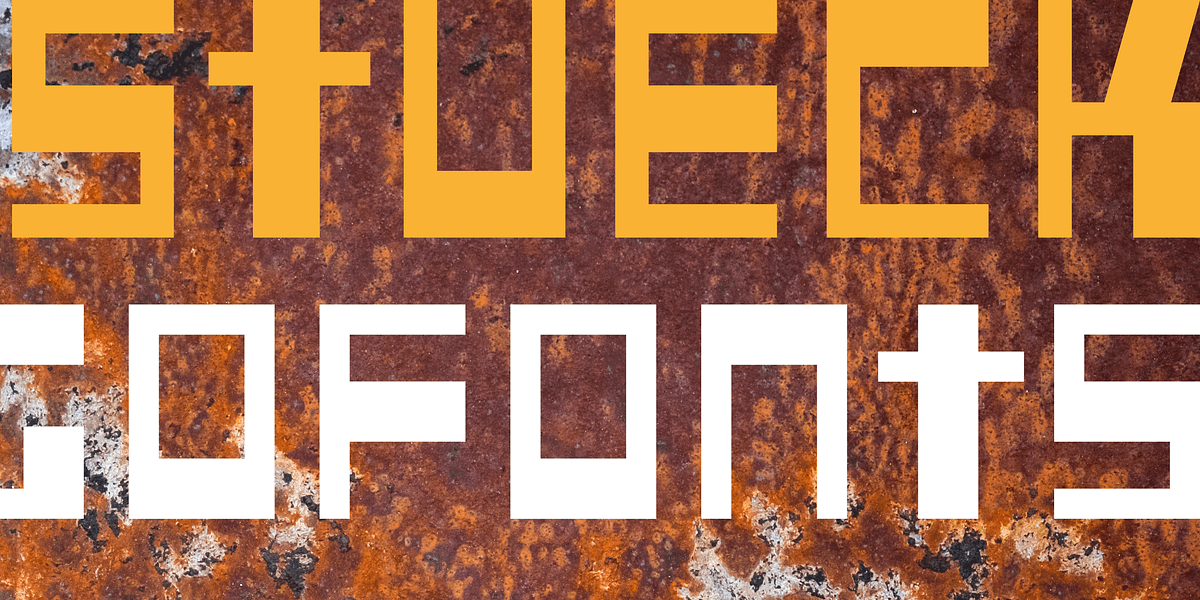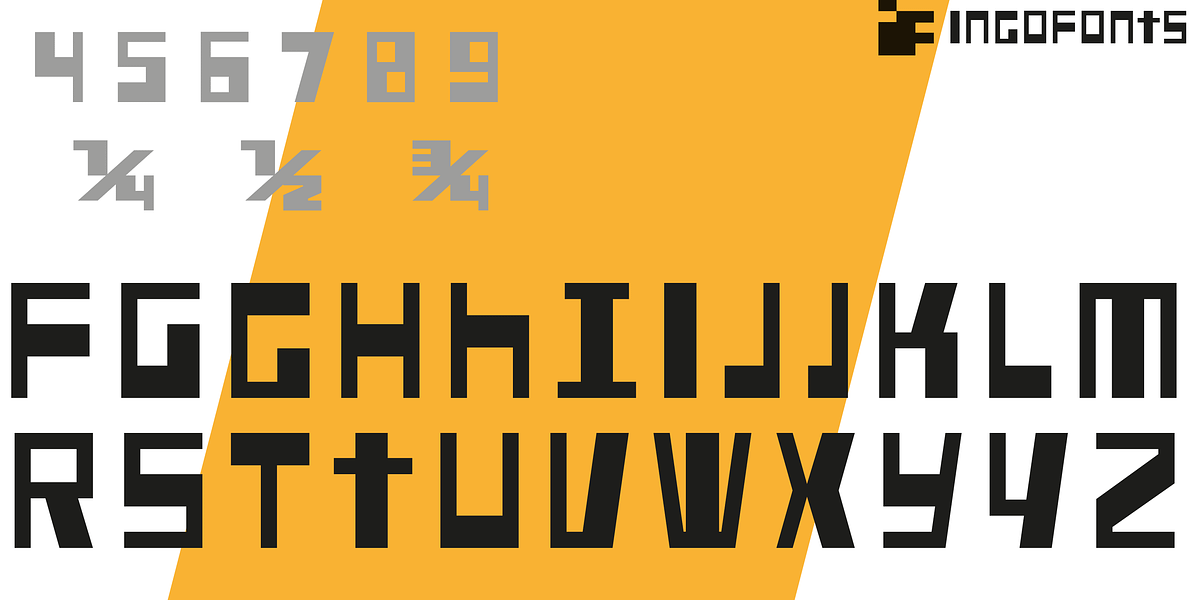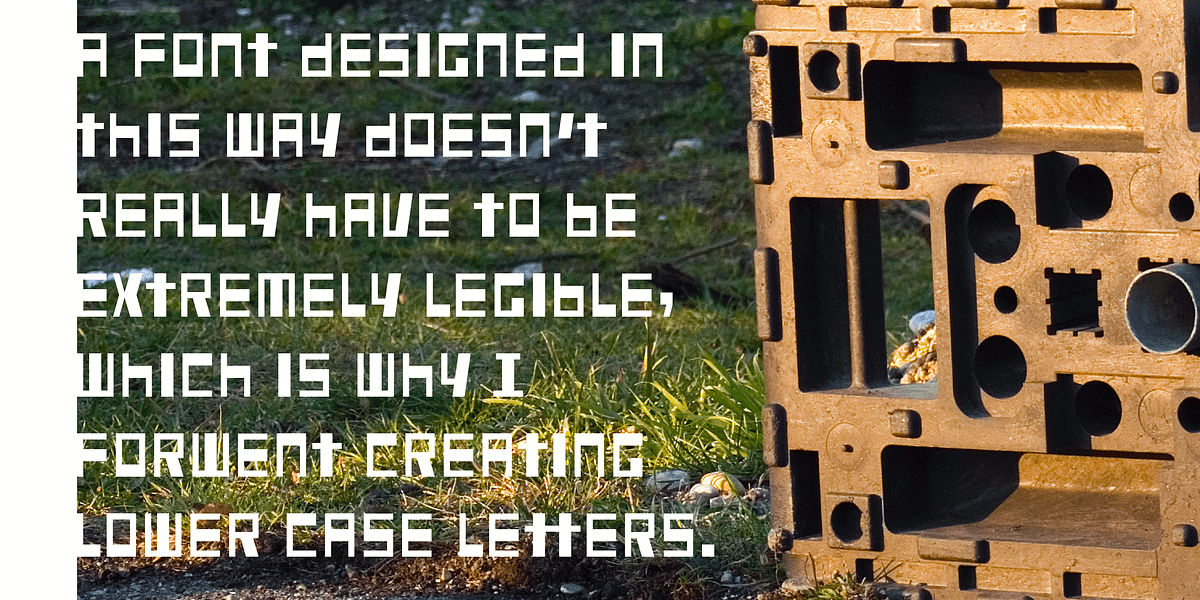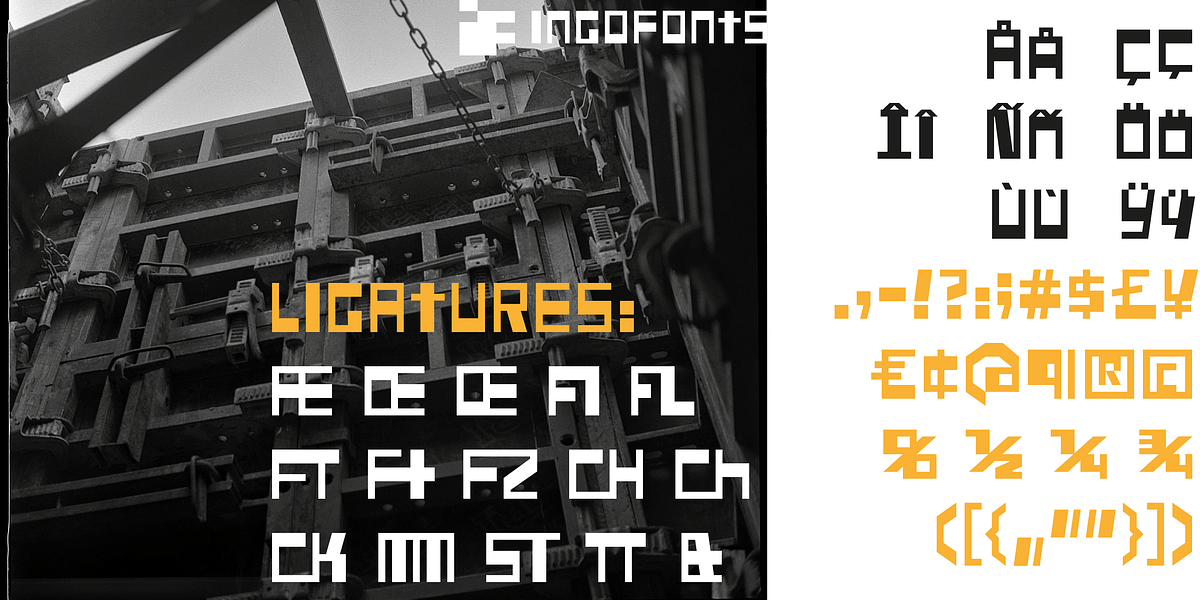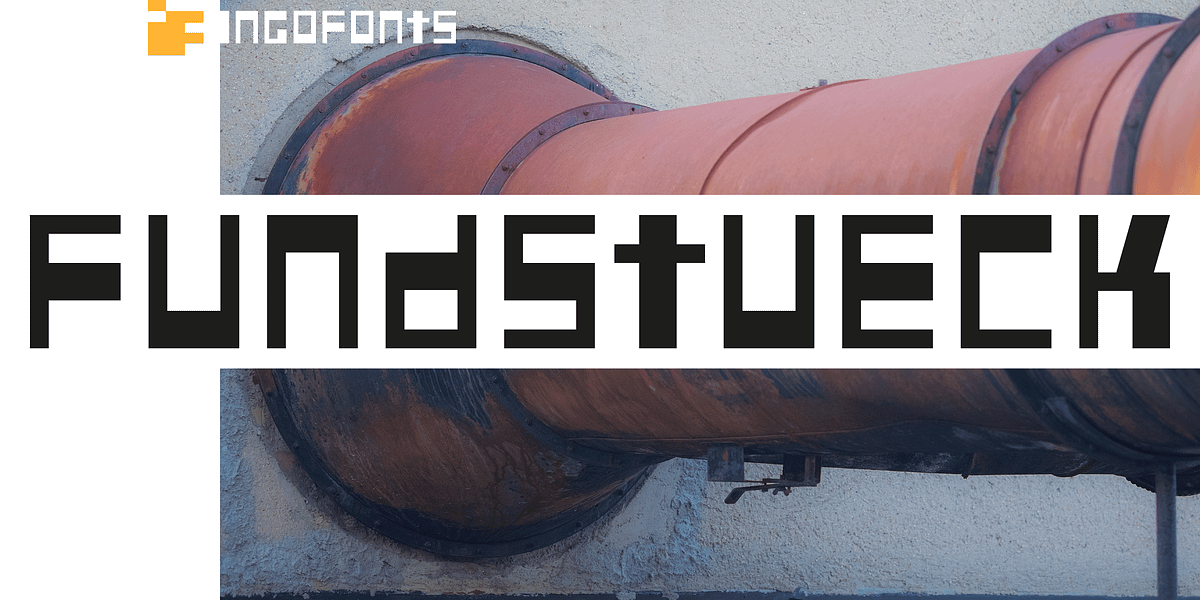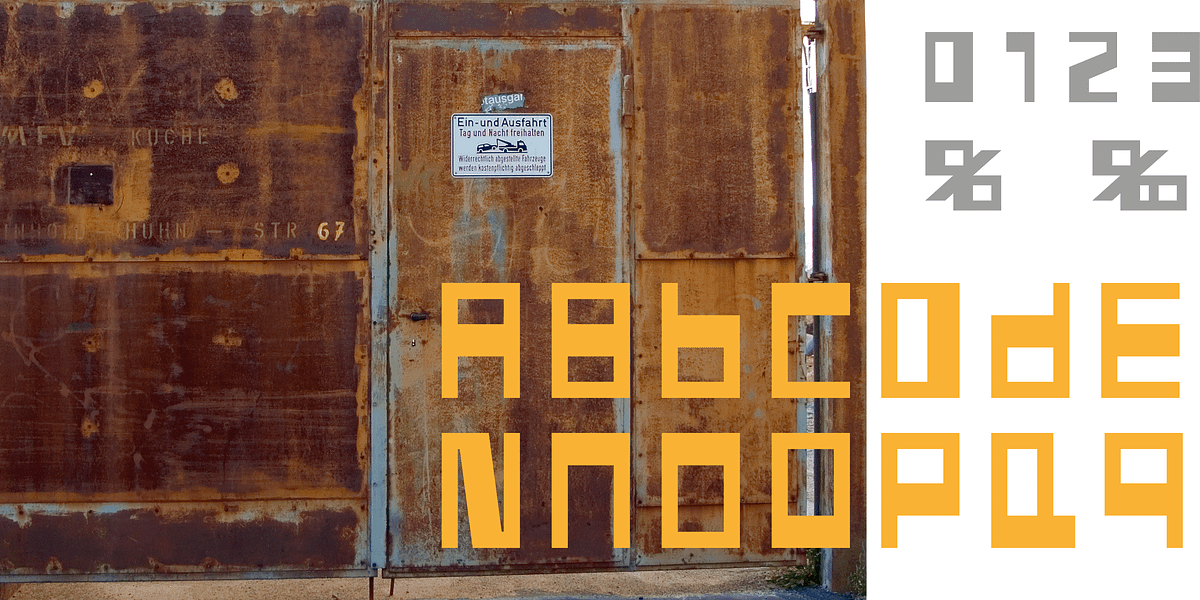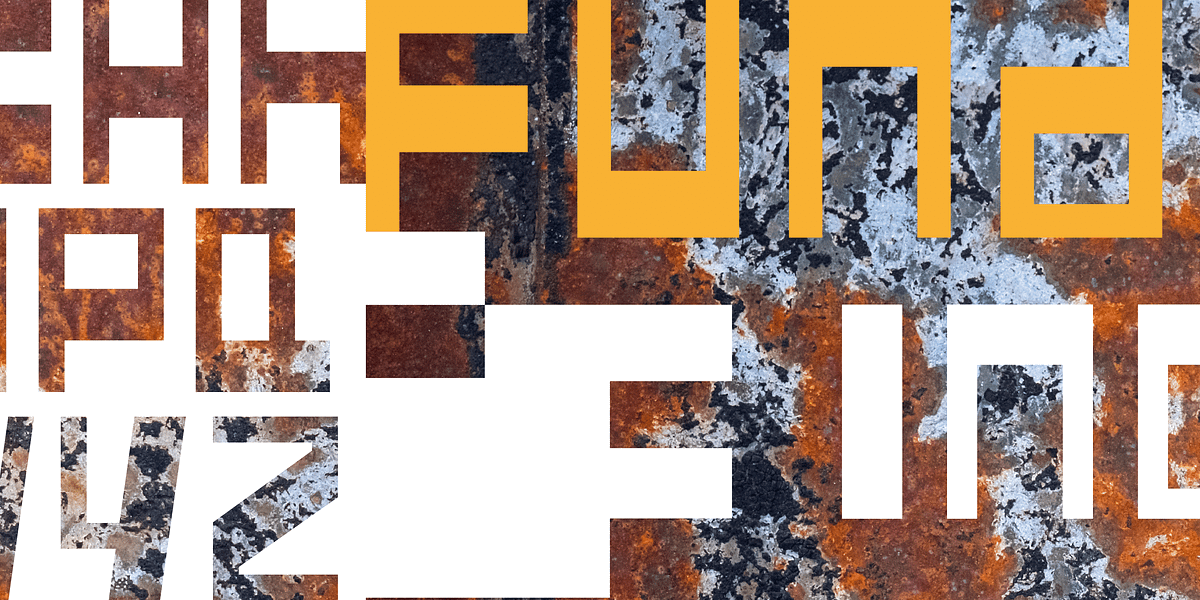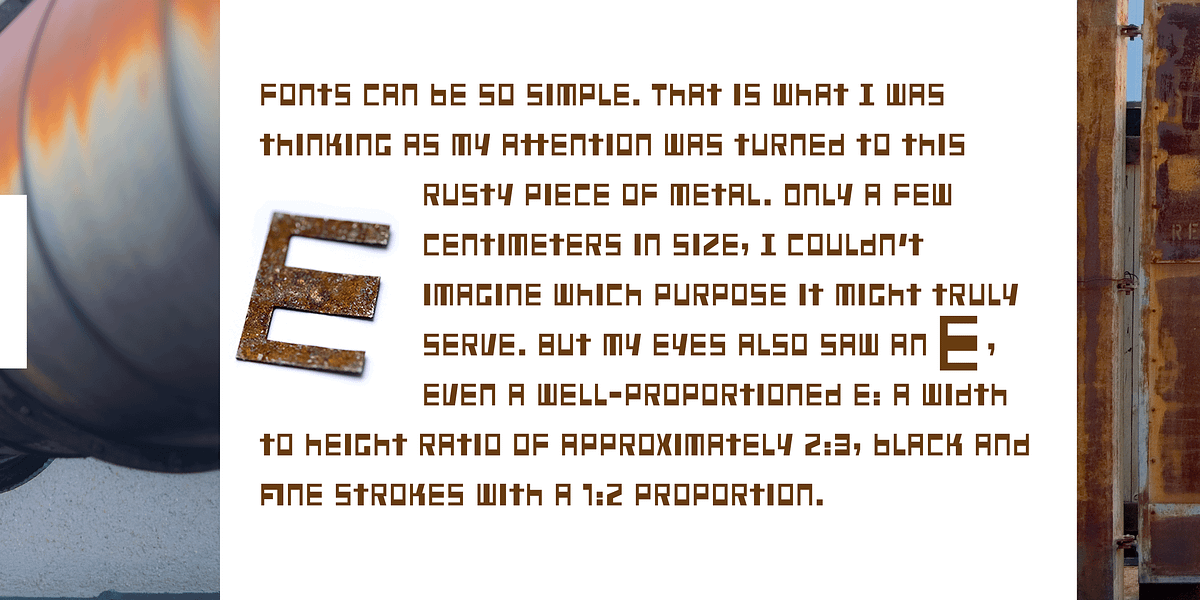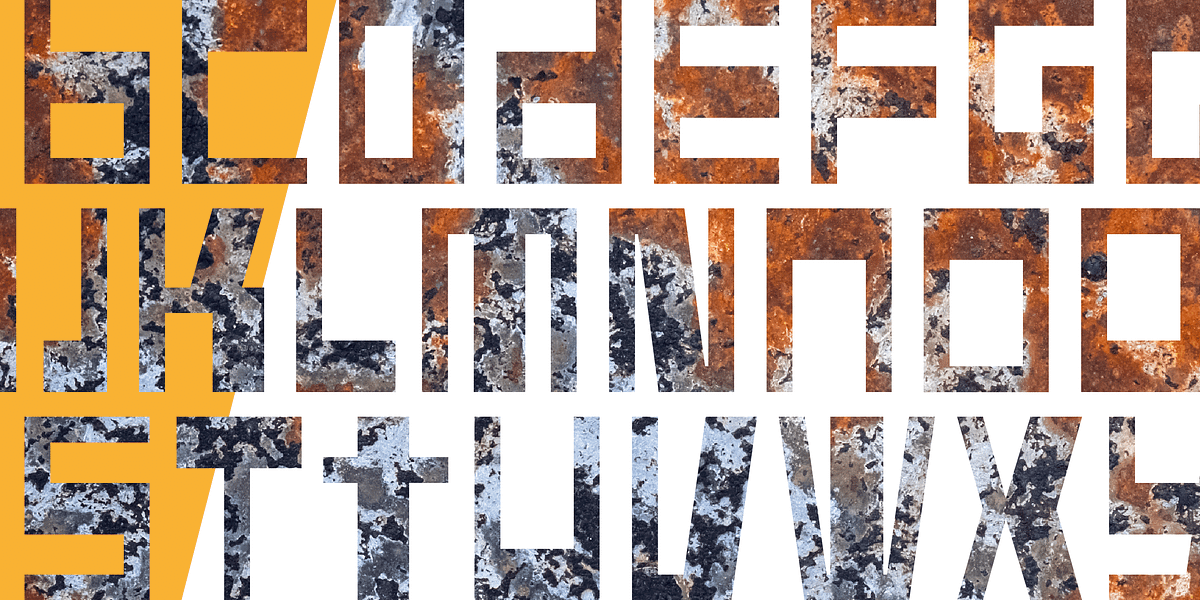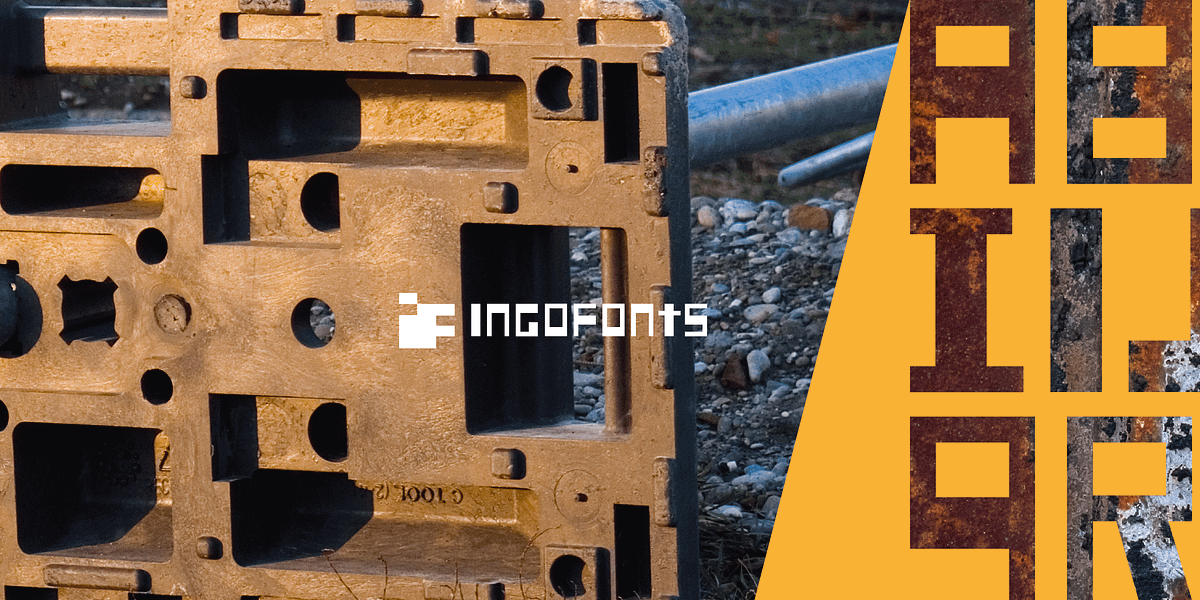
Fundstueck
Fundstueck is a geometric sans-serif font inspired by the designer's observation of a small piece of rusty metal. The typeface features thick strokes with a unique 2:3 width to height ratio and a distinct emphasis on horizontal lines. While lacking lowercase letters, Fundstueck offers diverse upper-case forms and includes accented characters positioned between the baseline and cap height, resulting in interesting ribbon-like lines.